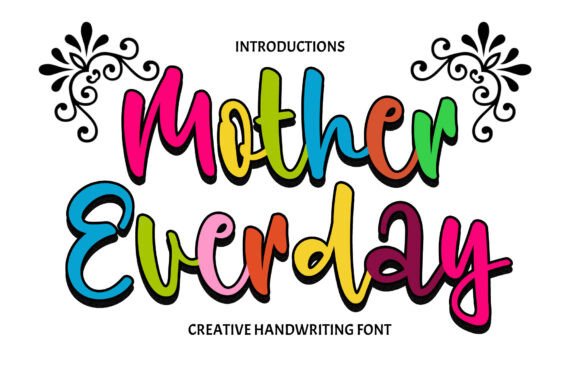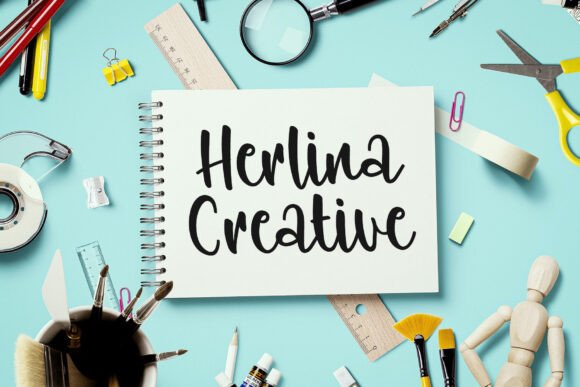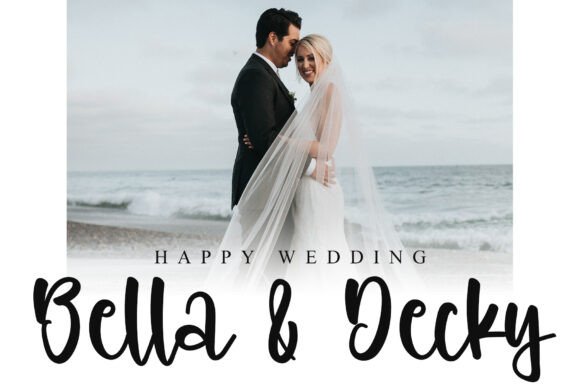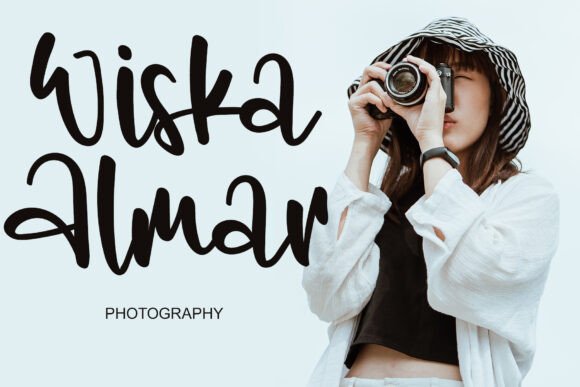
Mother Everday Font: A Cute Handwritten Script for Cricut & DIY Projects
About the Mother Everday Font
Welcome to the world of Mother Everday Font, a typeface that will inspire your next great project. Mother Everday – A Warm & Expressive Modern Handwriting Font
Meet Mother Everday – a beautifully crafted script handwriting font that blends the charm of natural handwriting with contemporary elegance. Designed with flowing, organic strokes, this Modern Handwriting Font is perfect for adding a personal, heartfelt touch to your designs. Whether you’re designing a cozy café logo, a heartfelt greeting card, or stylish packaging, Mother Everday brings warmth and personality to every project. Elevate your designs with this effortlessly stylish script handwriting font!
Mother Everday Font Usage Examples
Mother Everday Font Example